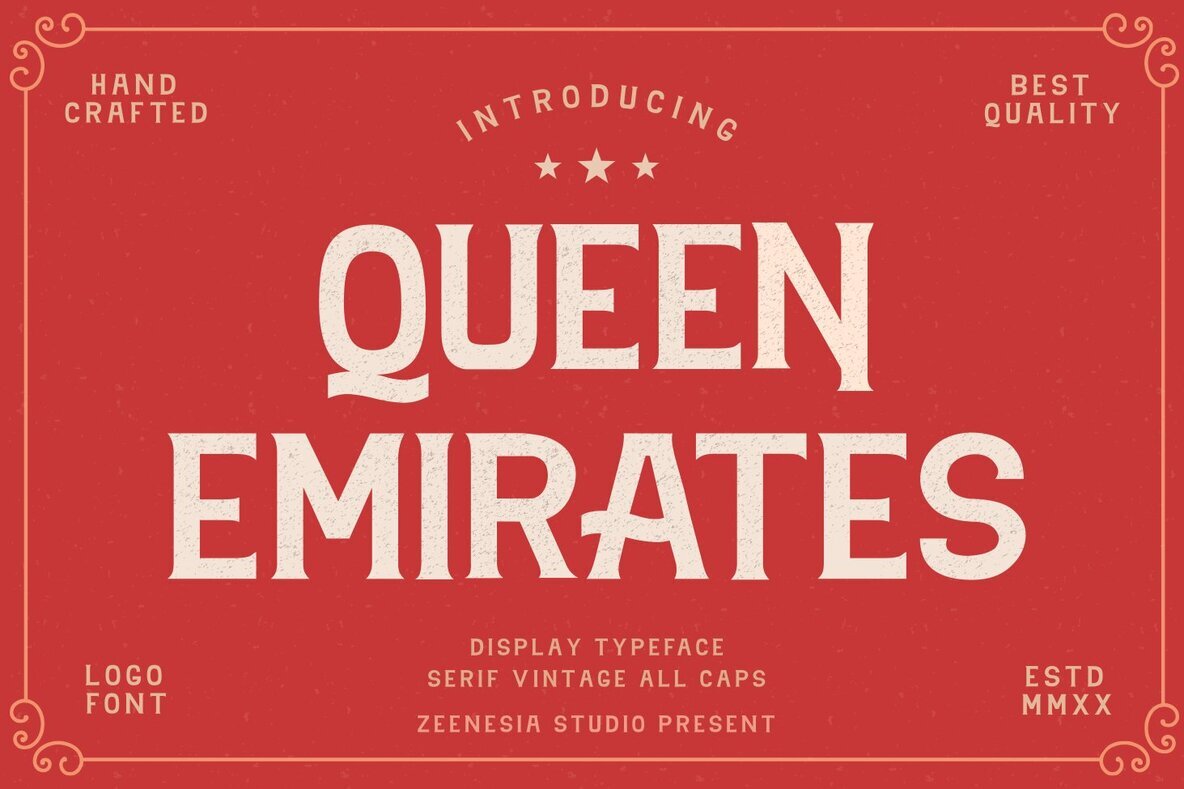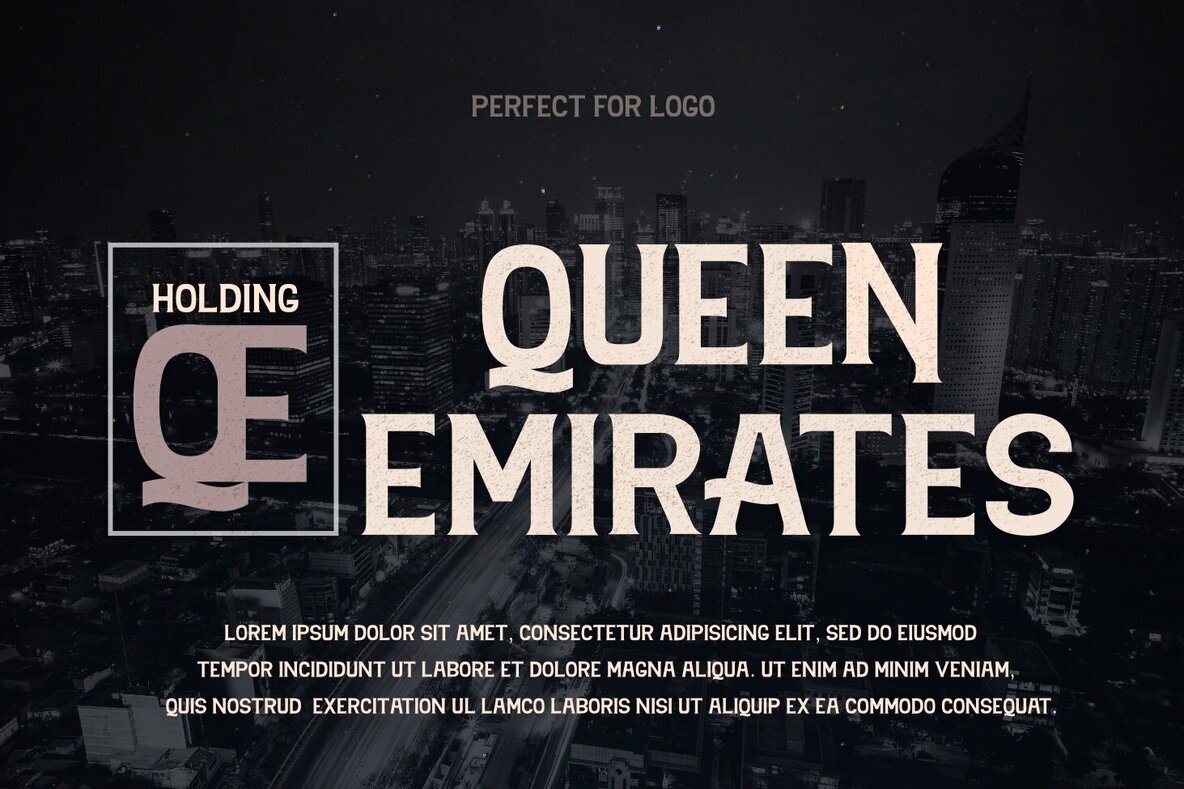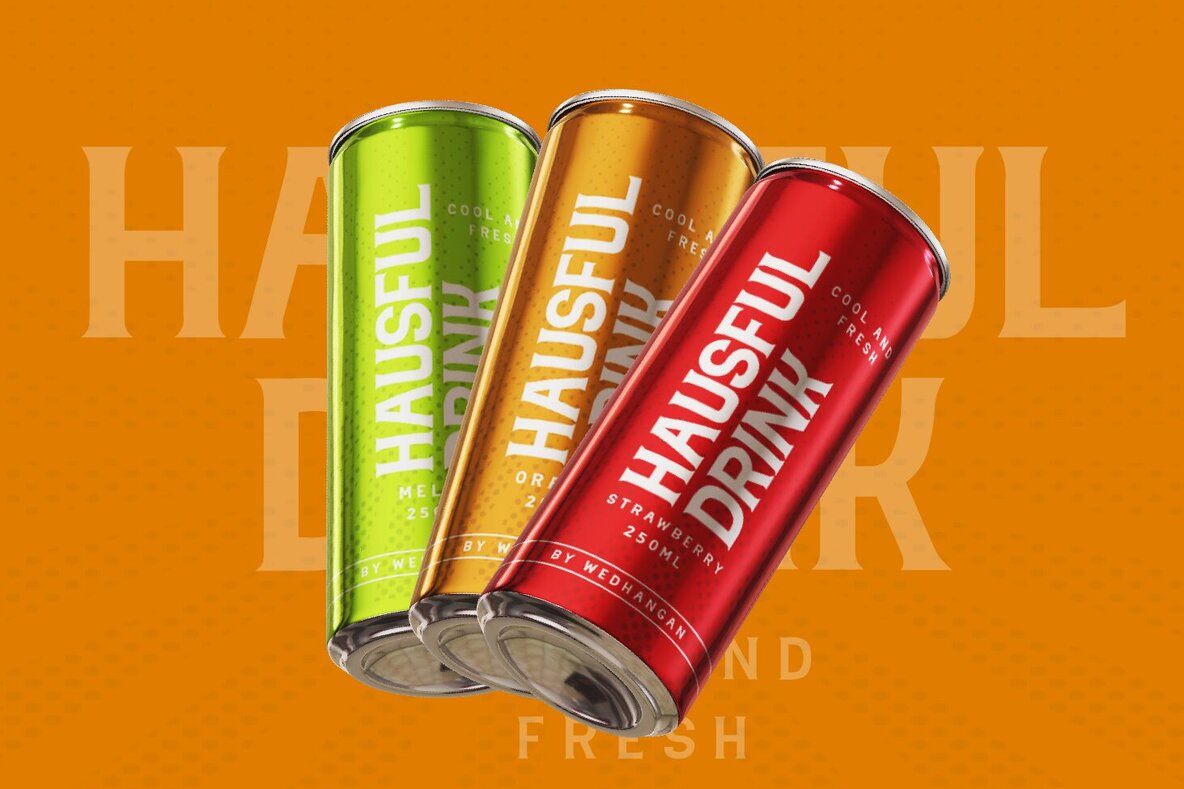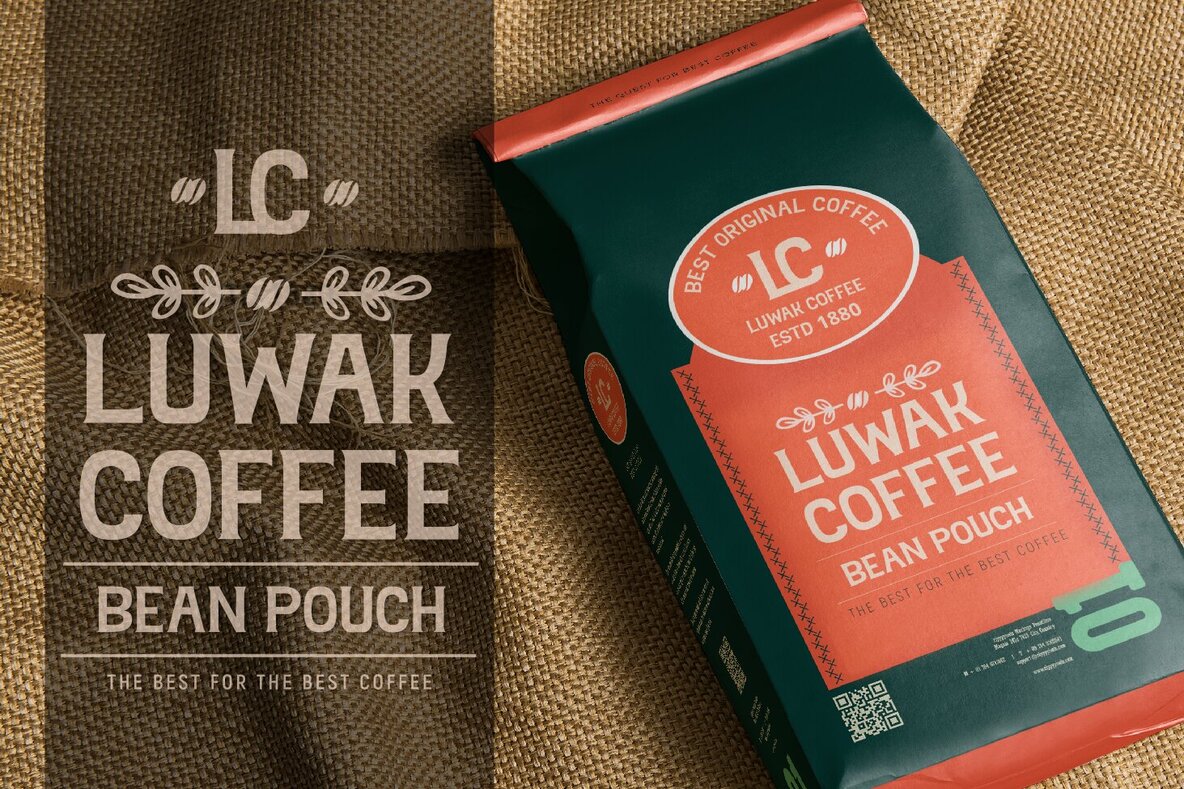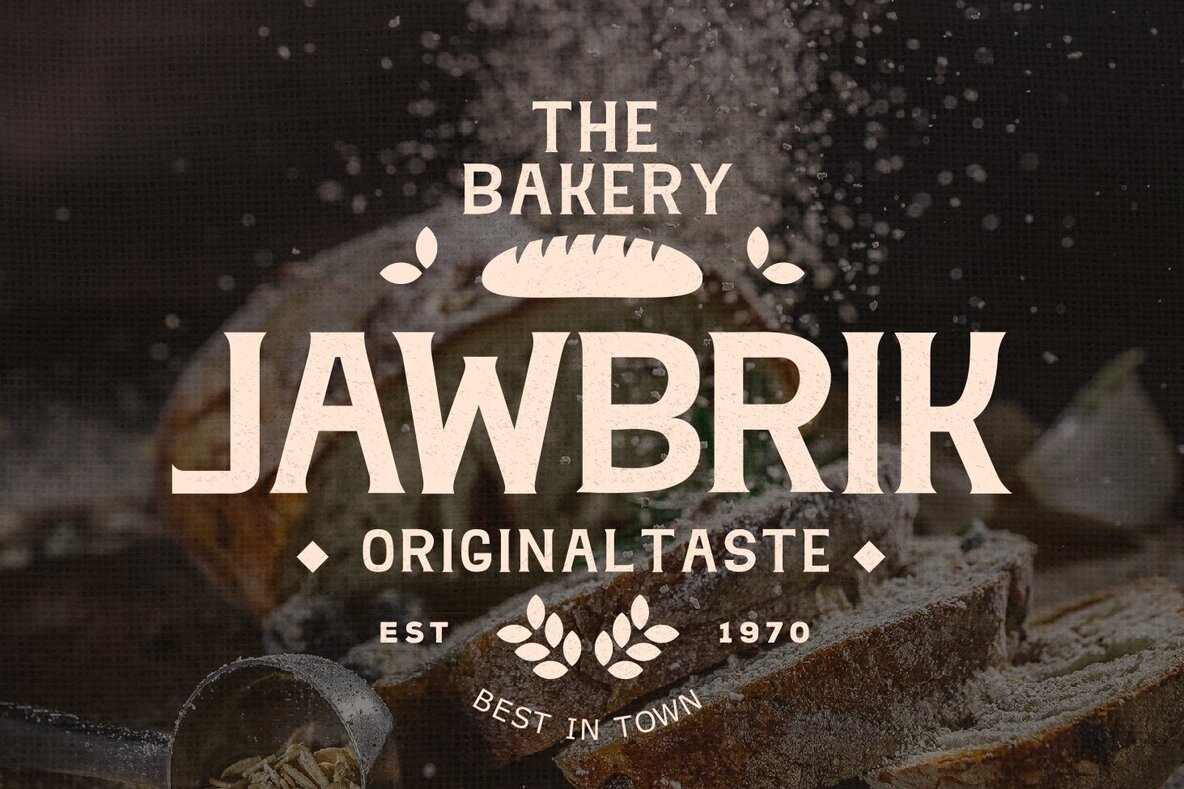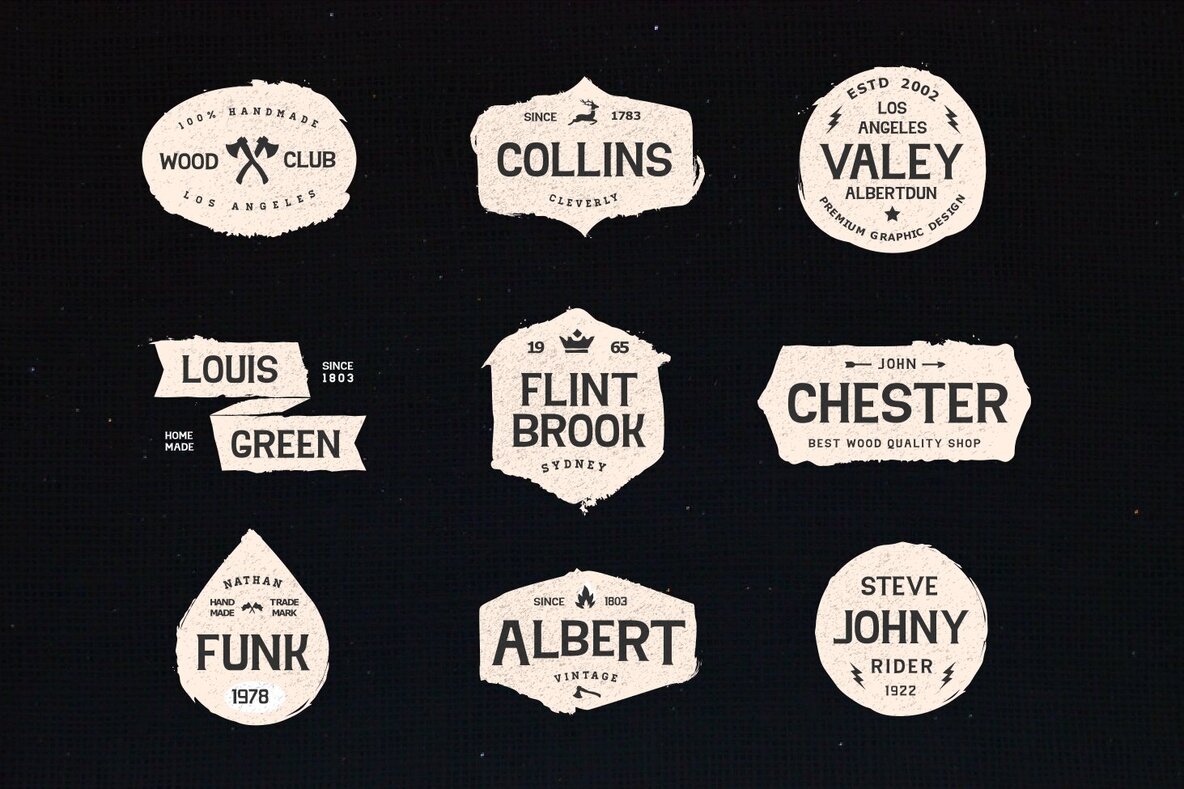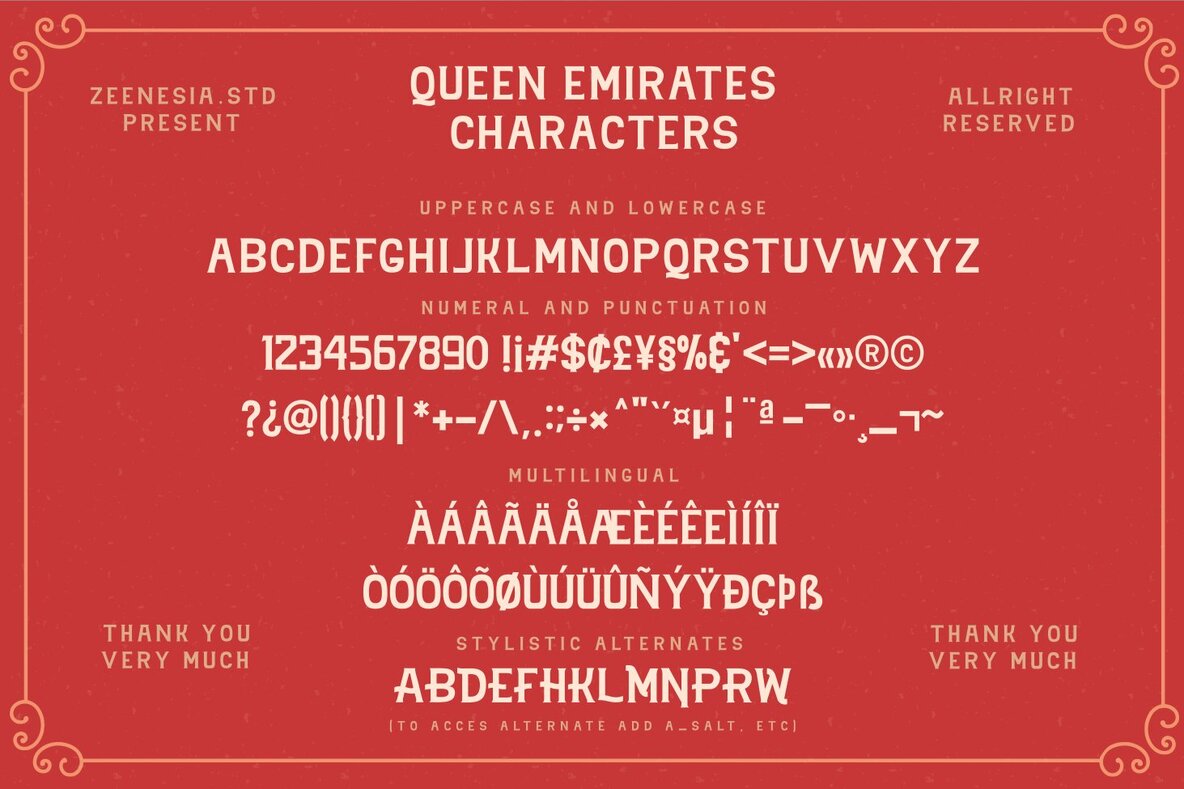
Queen Emirates Font
Queen Emirates is a vintage serif font, perfect for branding, typography design, badge design, product packaging, invitations, quotes, t-shirt designs, labels, posters, and special events requiring a vintage touch. This carefully crafted font includes standard glyphs, multilingual support, and is compatible with PC & Mac. Accessible in Adobe Illustrator, Adobe Photoshop, Adobe InDesign, and Microsoft Word, Queen Emirates is PUA encoded, allowing access to all characters without additional design software. Elevate your designs with the vintage elegance of Queen Emirates.